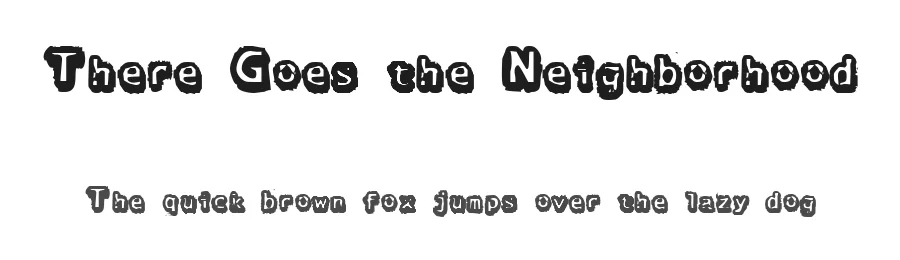
About TS Crude Font
TS Crude is a display font designed by Varvara Krasavina. It includes 122 glyphs, a regular weight, TTF (TrueType) format, and 96 languages. TS Crude is free to download; check the license details on this page before commercial use. Display fonts like TS Crude work best for logos, posters, headlines, and eye-catching social media graphics.
| Designer | Varvara Krasavina |
TS Crude Font is a display font that shines as a display or heading face. Pair it with a clean sans-serif or serif font for body text โ the contrast creates a clear hierarchy while the two styles stay balanced and easy to read.
TS Crude Font
TS Crude Font is a display typeface by Varvara Krasavina, ideal for logos, invitations, branding, and creative projects.